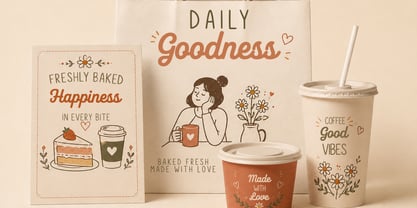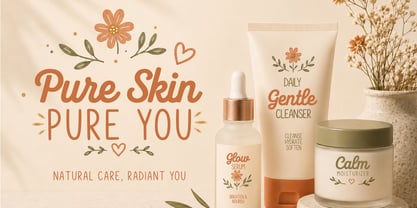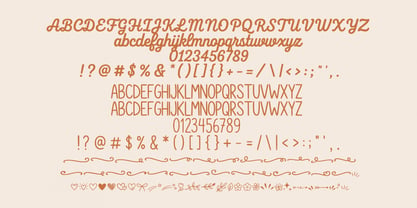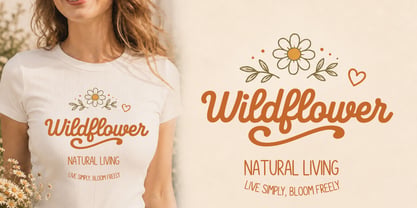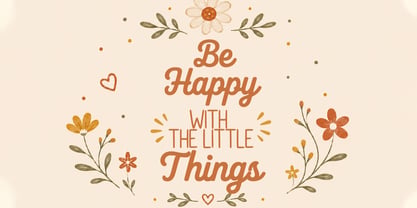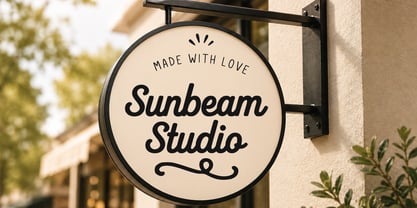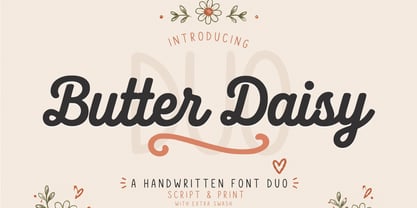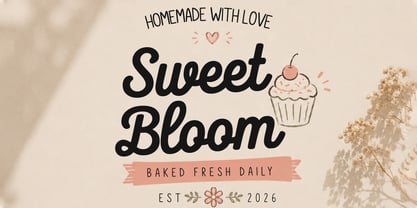
Butter Daisy Duo
The Butter Daisy Duo Font Family was designed by Muhammad Zaini and published by Cocodesign. Butter Daisy Duo contains 3 styles and family package options. More about this family
Butter Daisy is a delightful handwritten font duo that artfully blends a smooth script with a whimsical handwritten print. Designed to evoke a warm, friendly, and organic feel, this versatile pairing infuses effortless personality into any creative project. The flowing script imparts elegance, while the clean print font ensures balance and readability, making them ideal for use together or individually. Featuring exquisite swashes, Butter Daisy provides added flexibility for crafting striking typography with a handcrafted essence. Whether utilized for branding, packaging, social media, or invitations, this font duo offers a fresh and contemporary handwritten style that feels both authentic and timeless.